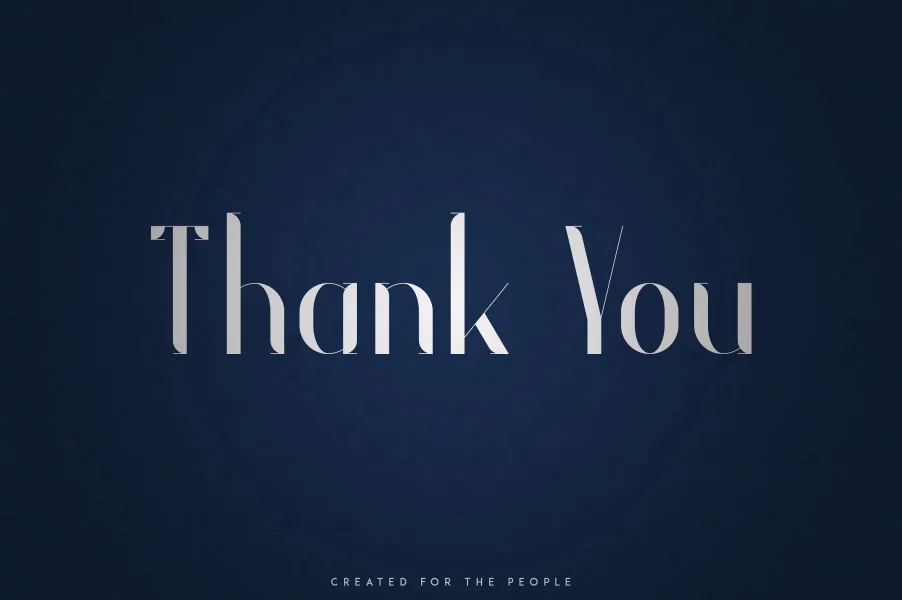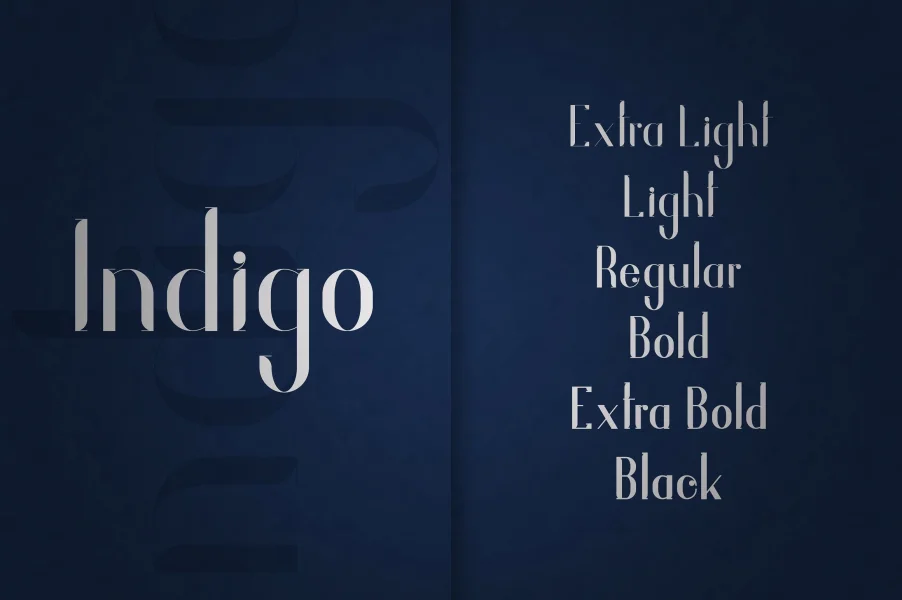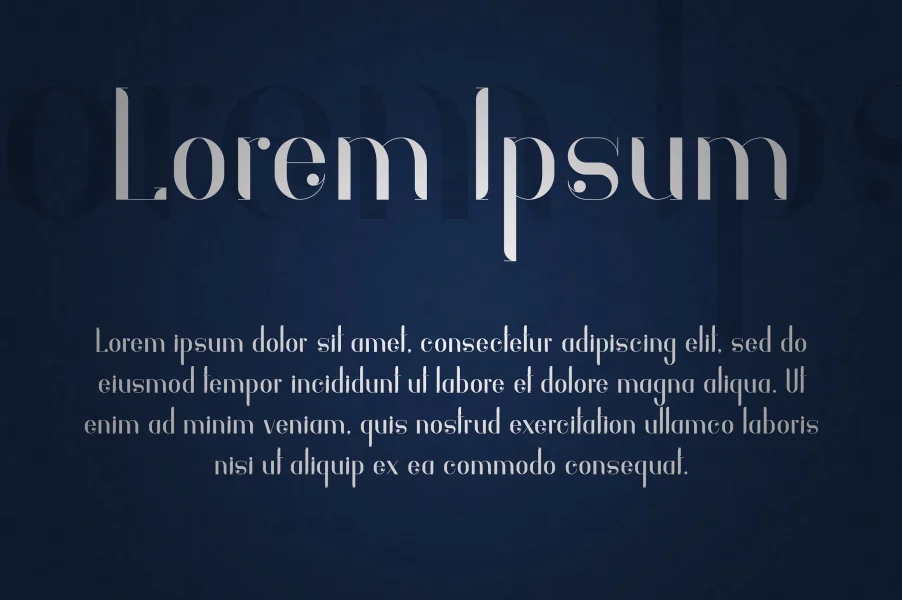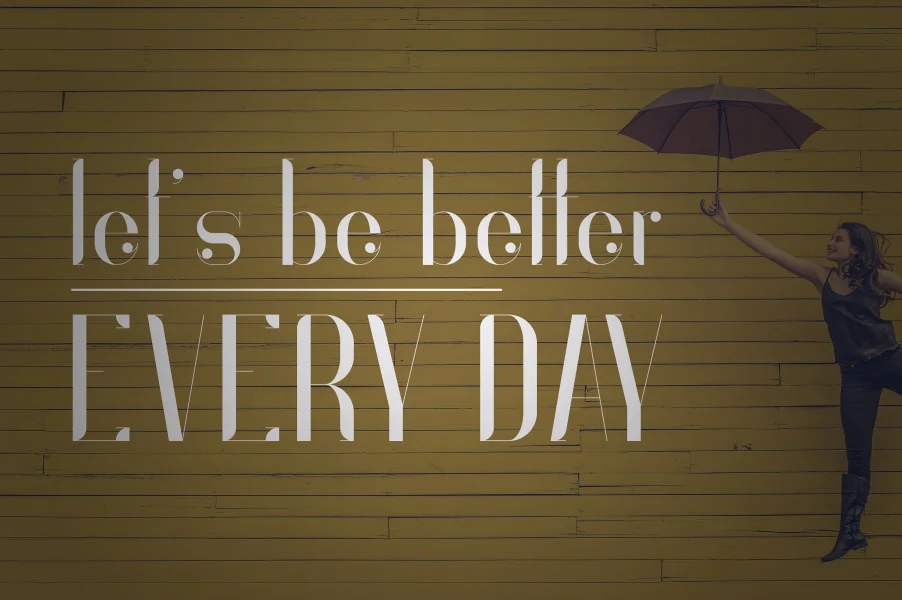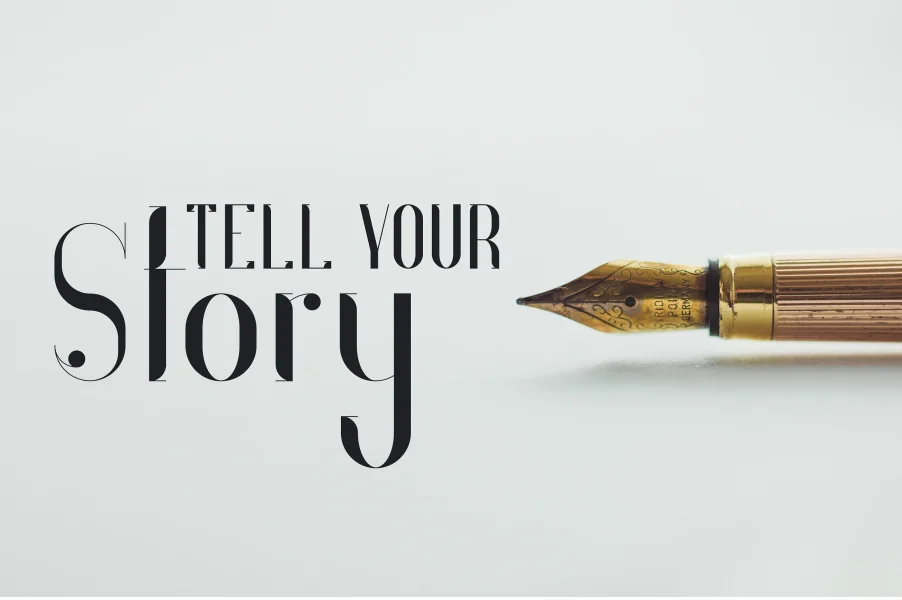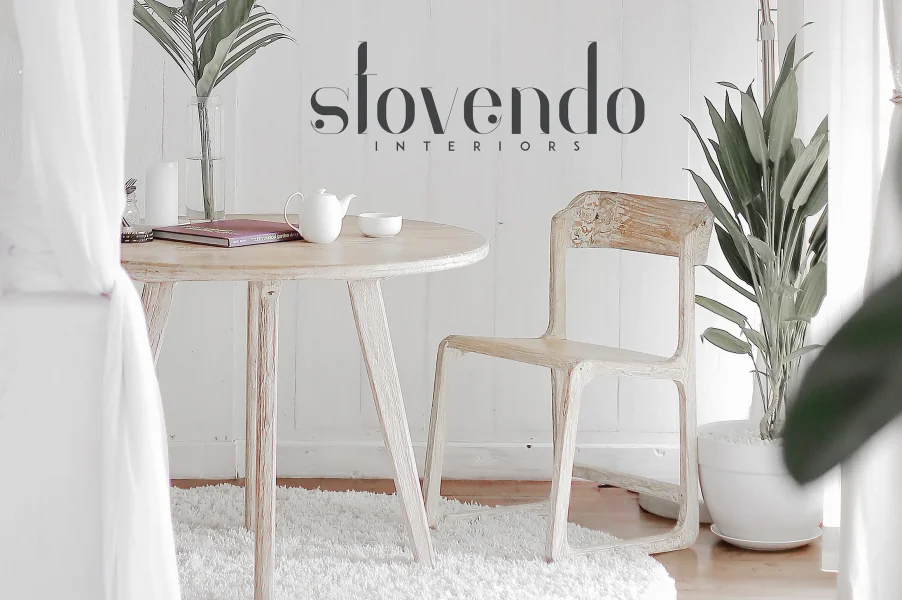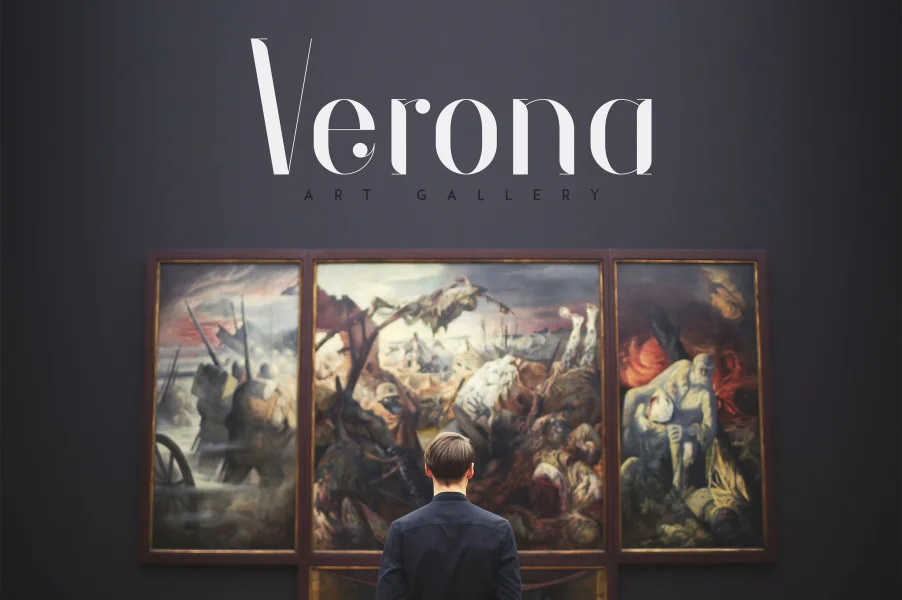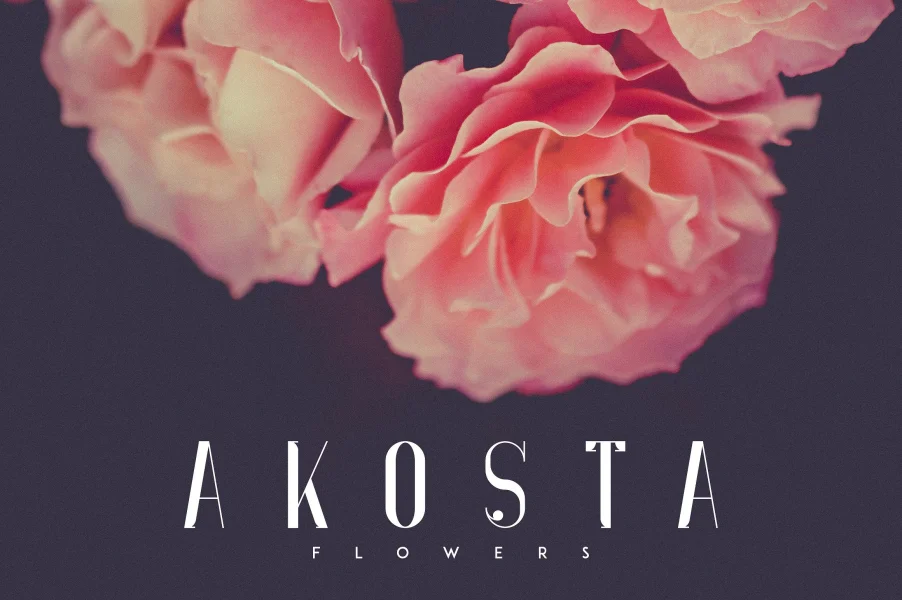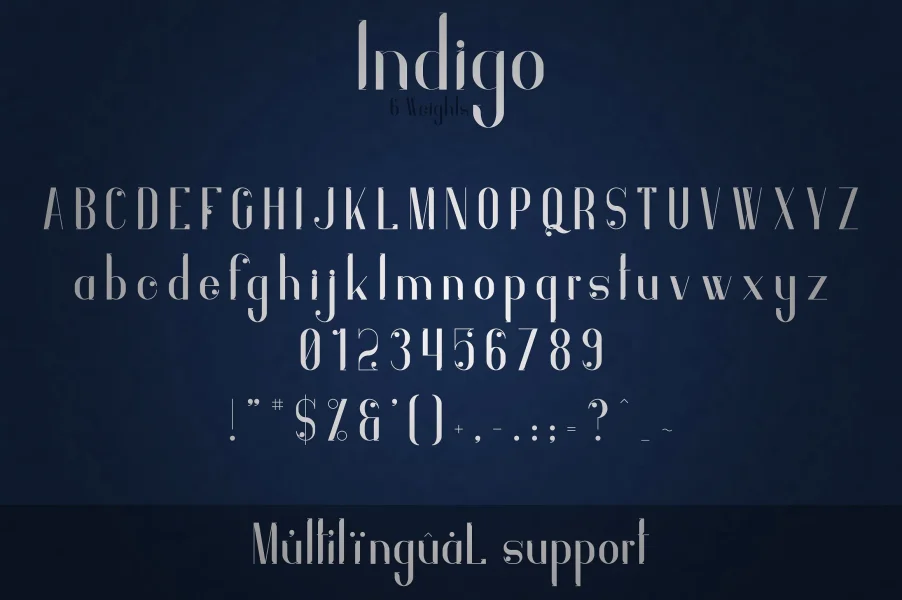
Indigo is perfect for branding projects, home-ware designs, product packaging, magazine headers - or simply as a stylish text overlay to any background image.